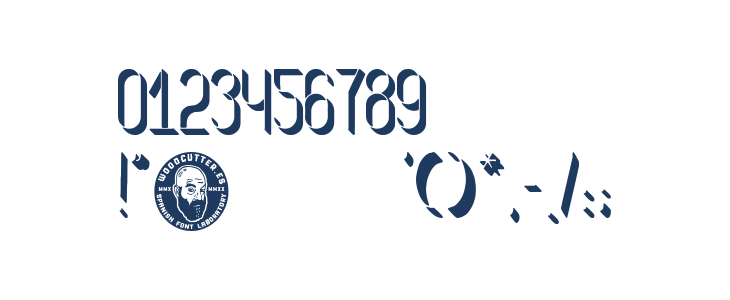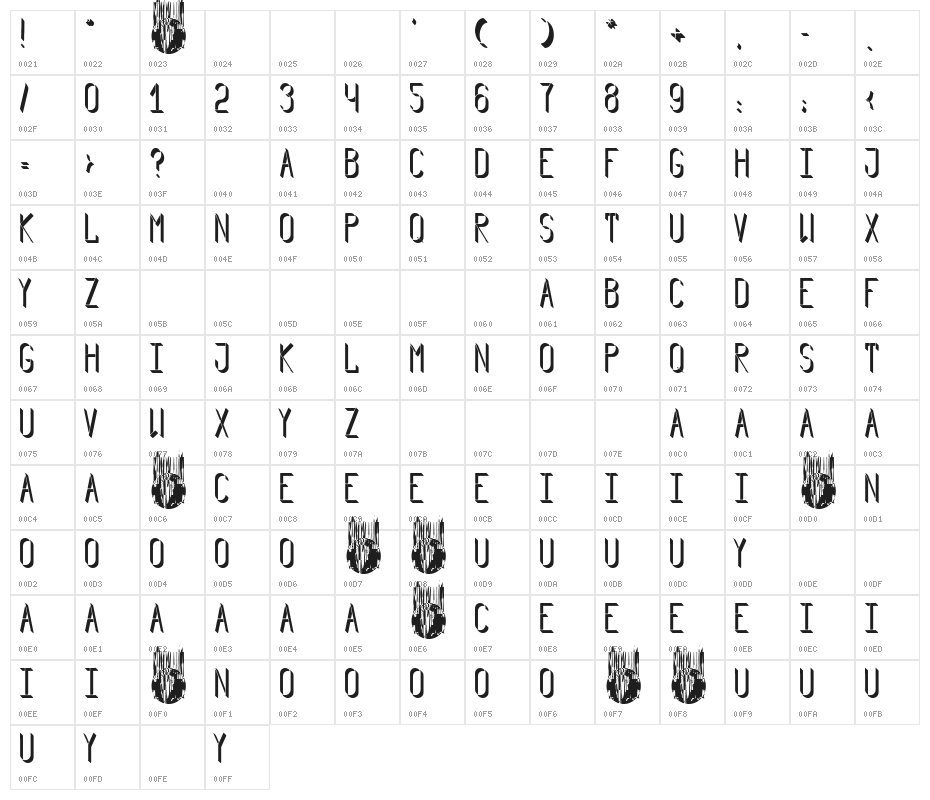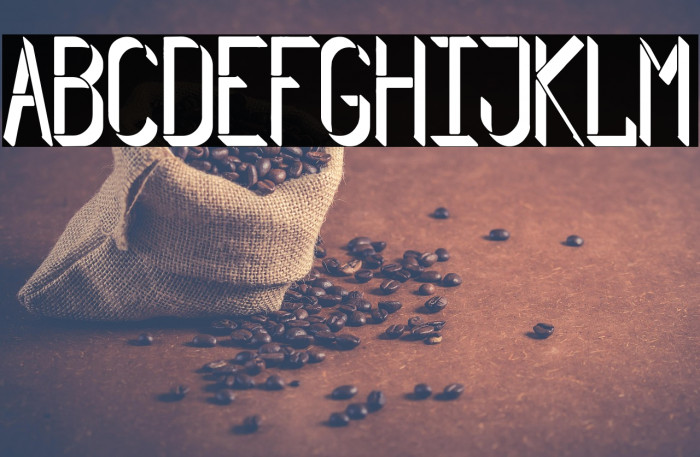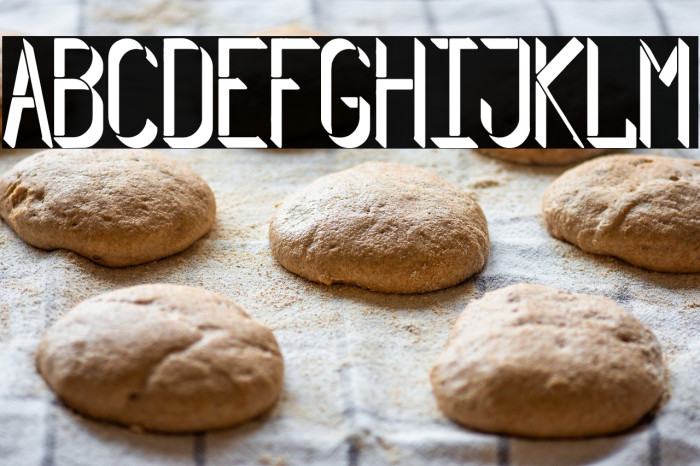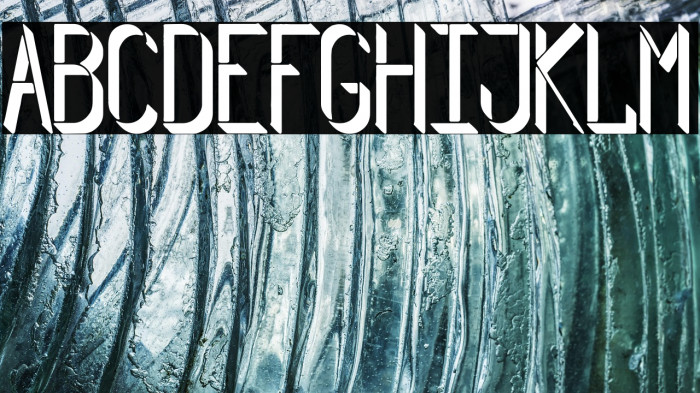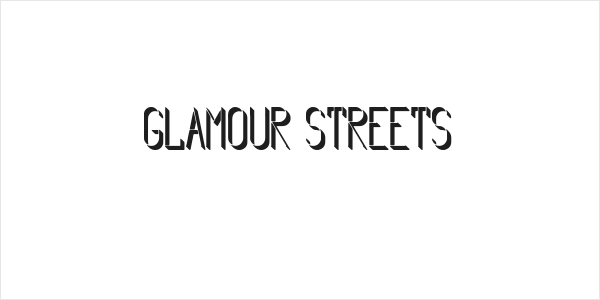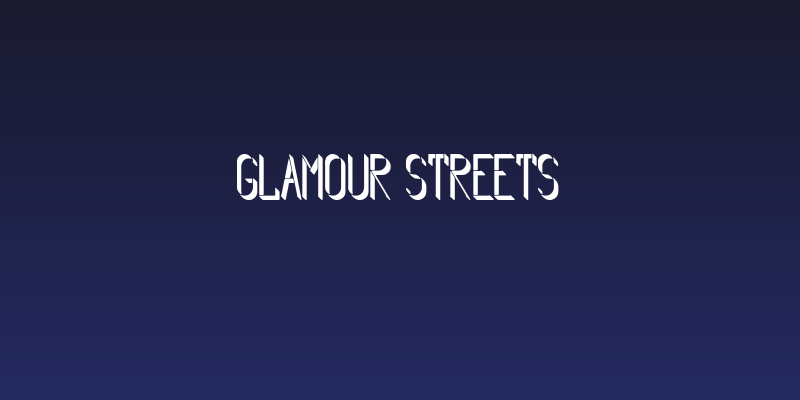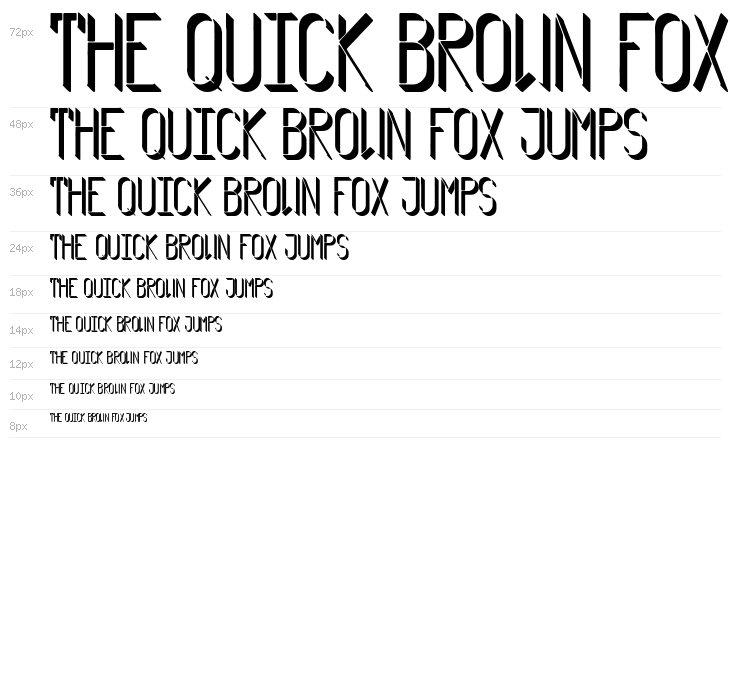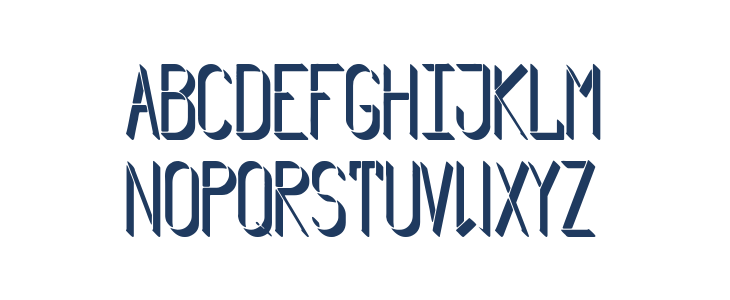
Glamour Streets Font
Glamour Streets Description
This font exhibits a bold and modern aesthetic with a geometric and angular design. The characters are constructed with sharp edges and clean lines, creating a striking visual impact. The uppercase and lowercase letters maintain a consistent style, with a unique interplay of negative space that adds to its distinctiveness. The numerals and special characters follow the same design principles, ensuring uniformity across all glyphs. This font's boldness and geometric nature make it ideal for attention-grabbing designs.